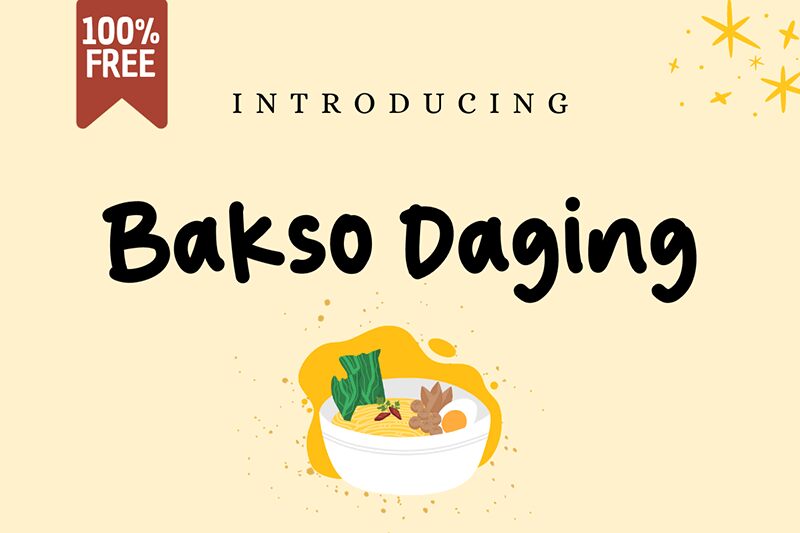
Bakso Daging
Bakso Daging font by Viola Type is a free handwritten font that intertwines casual modern style with an approachable vibe. The diverse character and close lines emphasize readability making it perfect for many approaches. Bakso Daging is unique in its own way as the design is unlike any other. Also, each shape can work alone or within words in a seamless connection.
Use this creative tool for T-shirts, signage, menus, stickers, cartoon shows and movies intros or outros, illustrations, art magazines covers/titles/headers/logos etc., digital projects like blogs or websites profiles and more!